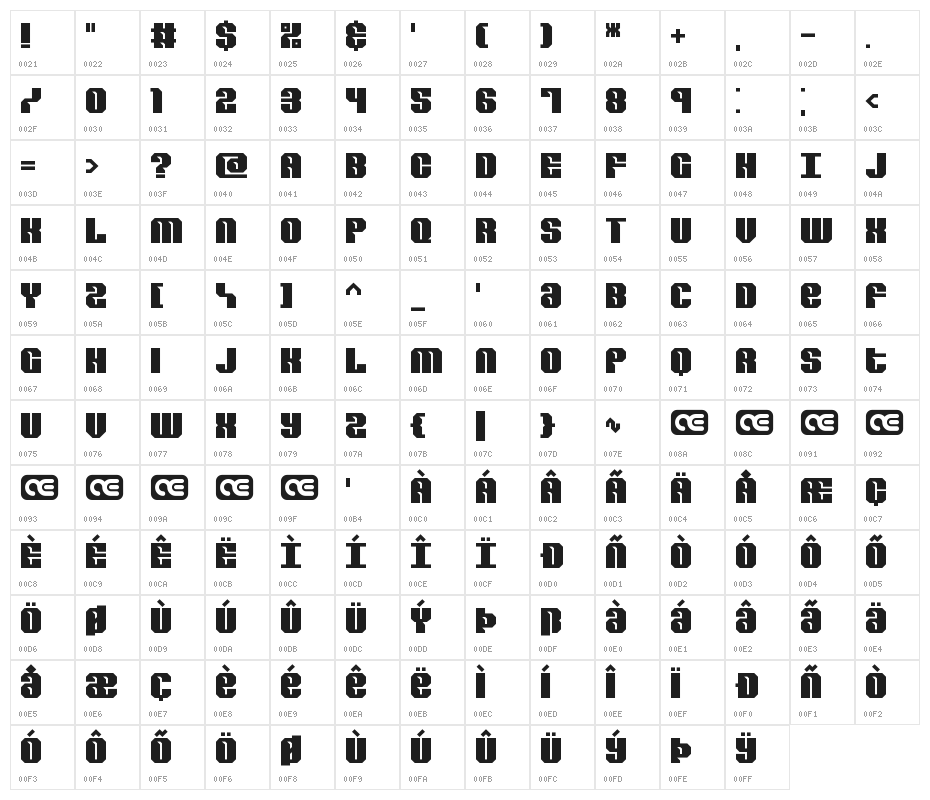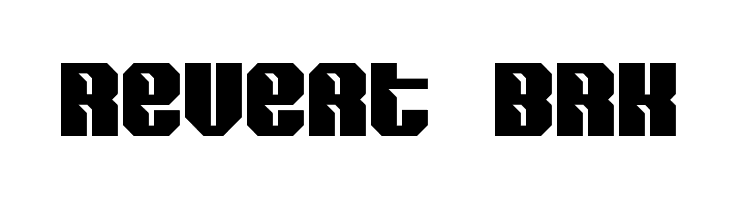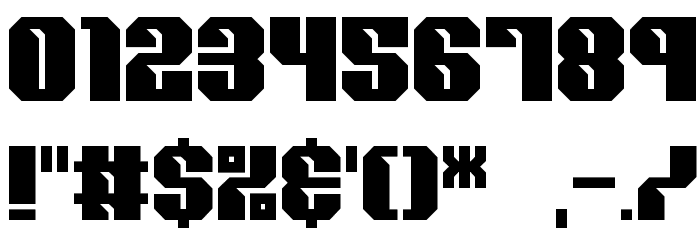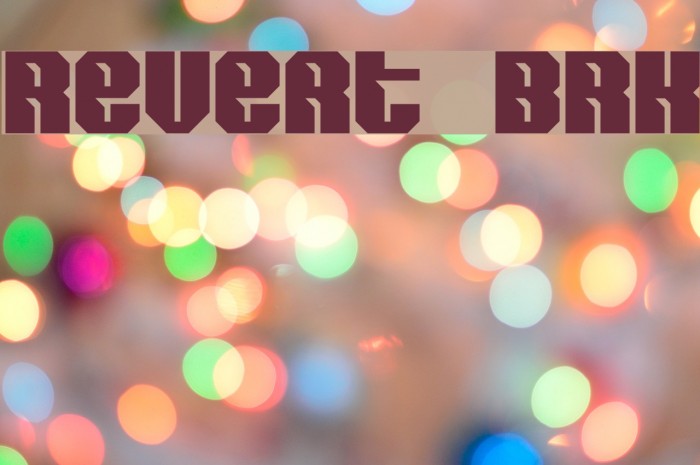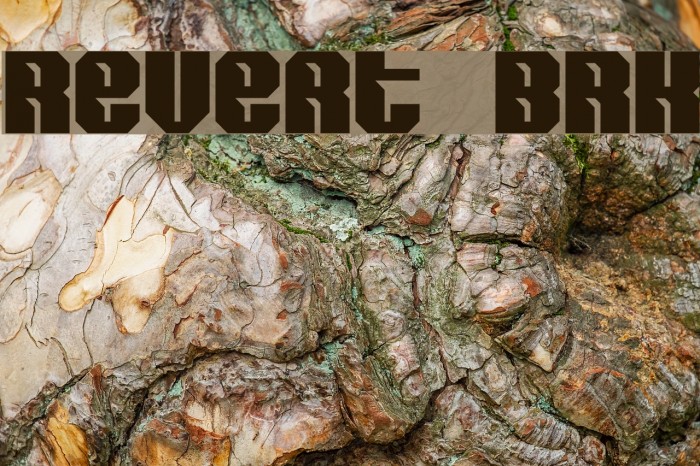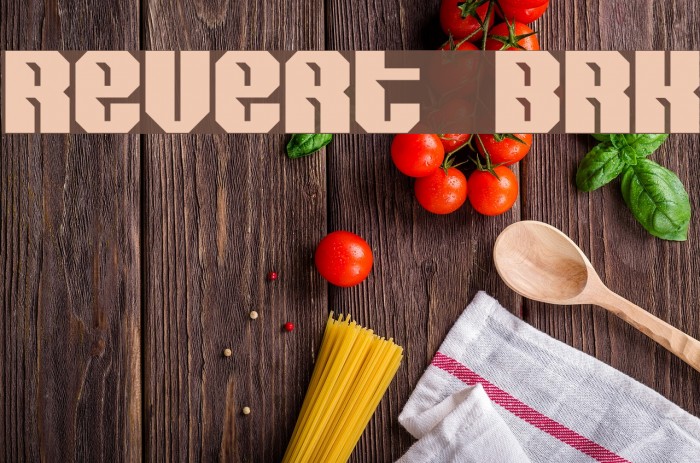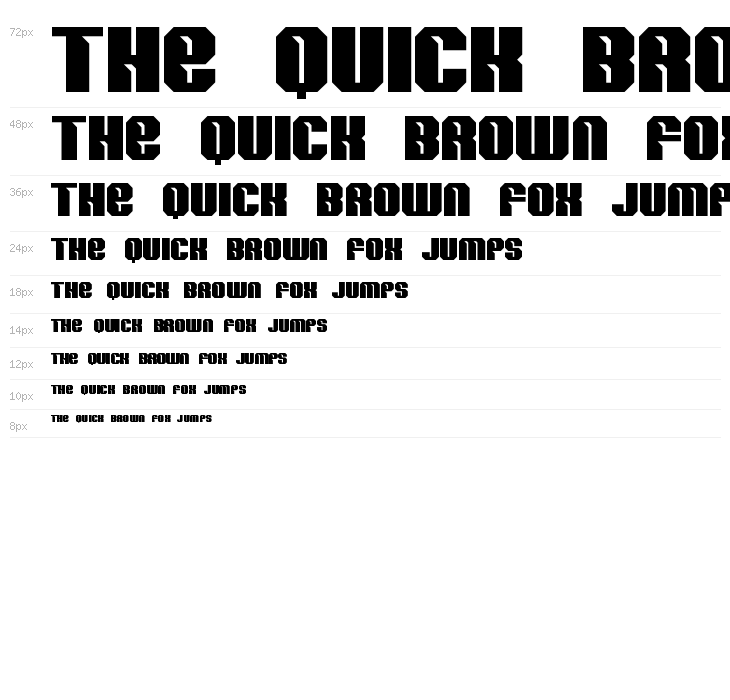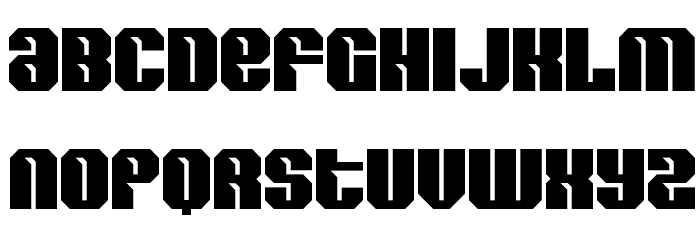
Revert BRK Font
Revert BRK Description
This font features a bold, geometric design with a strong presence. The characters are constructed with thick, block-like shapes that give a sense of solidity and strength. The angular cuts and sharp edges create a modern, industrial feel, making it stand out in any design. The uppercase and lowercase letters maintain a consistent style, with the same boldness and geometric structure. Numbers and special characters are equally robust, ensuring uniformity across all text elements. This font is ideal for projects that require a bold statement, such as posters, headlines, or branding materials.
| Proposed Projects | Ideal for posters, headlines, branding, and any design needing a strong, bold statement. |